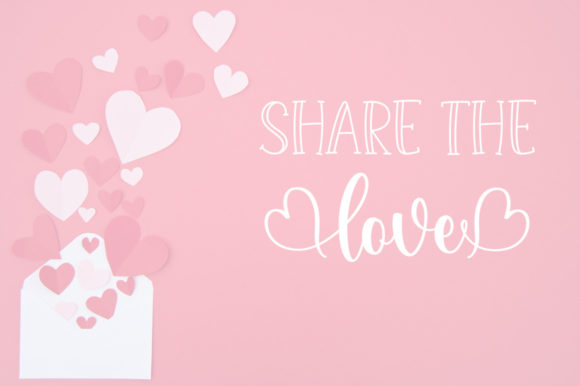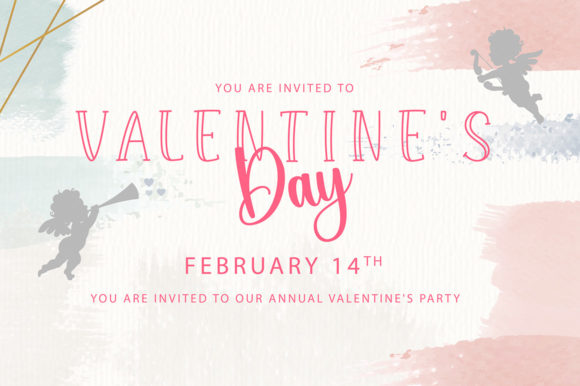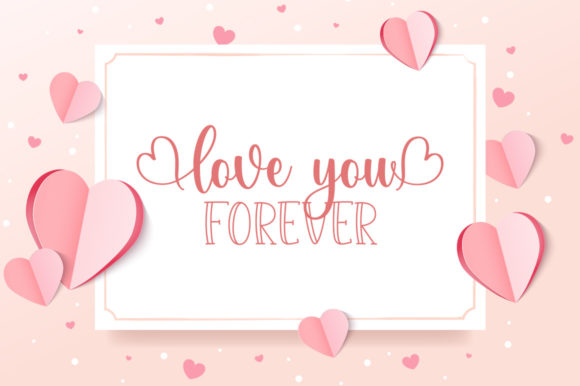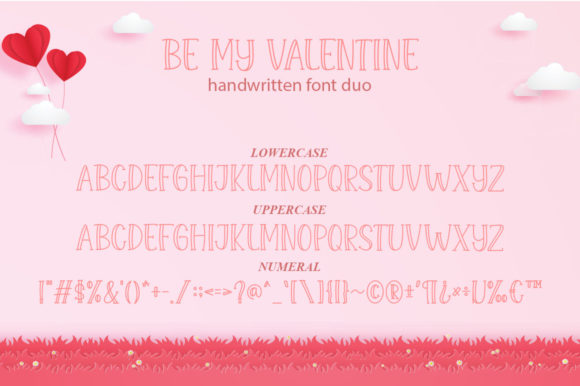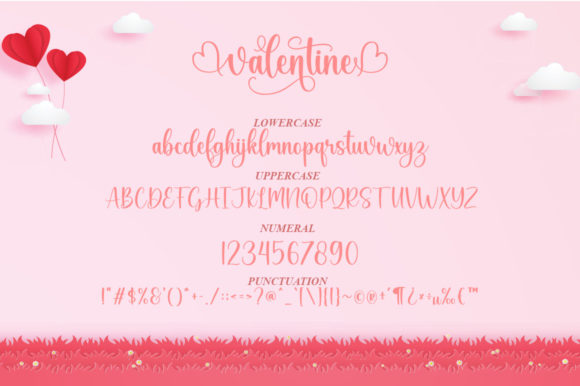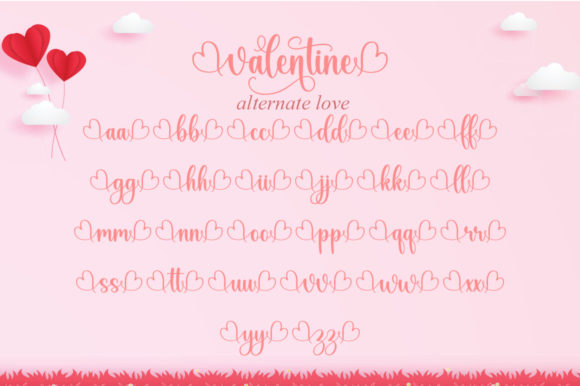
Adding a Touch of Love to Your Designs
There’s nothing quite like the thrill of creating something special for that someone special. Whether it’s a handmade card or a digital design, we all know the feeling of wanting to make it extra special. As designers, we’re always on the lookout for the perfect font to bring our ideas to life, and today, I want to introduce you to a font that’s sure to capture the heart of your audience: the Be My Valentine Font.
This lovely duo font combines an outlined serif with an elegant handwritten style, creating a beautiful balance that’s perfect for a wide range of designs. With its PUA encoding, you can easily access all the glyphs and swashes, making it a valuable addition to your design toolkit. Whether you’re working on a romantic project or just want to add a touch of whimsy to your next design, the Be My Valentine Font is sure to bring a smile to your face and a touch of love to your work.
Be My Valentine Font Key Features
- Font Style: Script, Handwritten, Casual
- Unique Characteristics: Whimsical, playful, cursive, and romantic, perfect for Valentine’s Day, weddings, and other love-themed designs
Be My Valentine Font Review
Be My Valentine Font is a sweet and charming font designed to capture the essence of love and romance. I must say, it’s a lovely addition to any project that needs a touch of whimsy and elegance. ✨ The font’s flowing curves and playful flourishes make it perfect for Valentine’s Day-themed designs, cards, and even wedding invitations.
- Unique and whimsical design that sets it apart from other fonts
- Perfect for adding a touch of romance and elegance to designs
- Works well in both digital and print media
- May not be suitable for formal or corporate designs
- Can be difficult to read in certain font sizes or styles
- Limited character set and language support
Overall, Be My Valentine Font is a delightful and charming font that’s perfect for projects that need a touch of romance and whimsy. While it may have some limitations, its unique design and playful flourishes make it a great addition to any designer’s toolkit. Just be sure to use it wisely and in the right context. ✨
The Be My Valentine font is perfect for romantic and festive designs, such as Valentine’s Day cards, gift tags, and social media posts. To get the most out of it, use it in combination with bright colors, hearts, and other festive elements. You can also use it to create custom invitations, party decorations, and other creative projects.